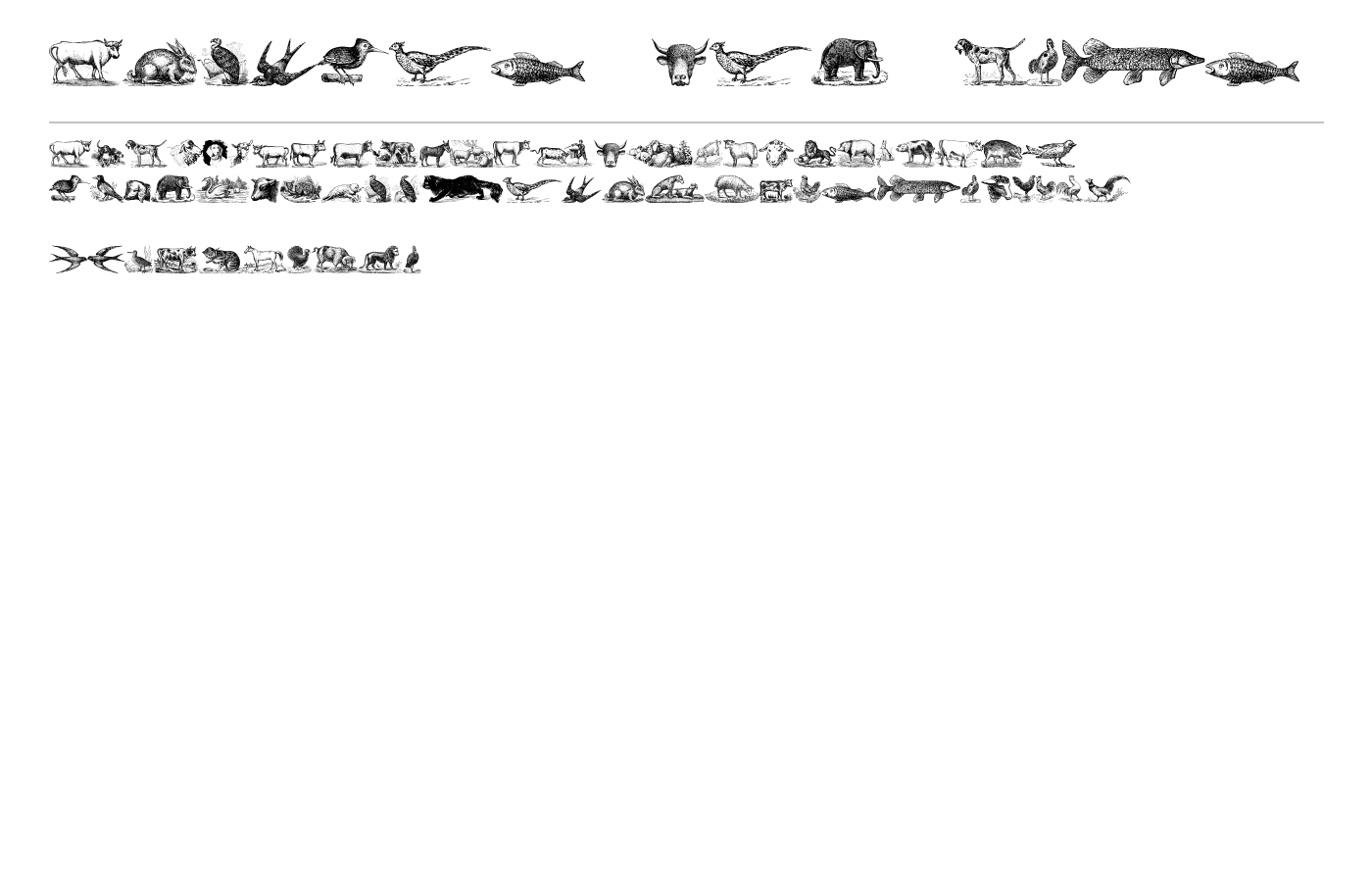
Animals Old Cuts is a unique decorative typeface featuring detailed vintage animal illustrations that evoke a nostalgic, old-world charm. This font works best for creative projects needing an antique, naturalistic touch, such as packaging, posters, or branding in the fields of wildlife, nature, or history. Its intricate and pictorial style makes it ideal for eye-catching headers rather than body text.
Animals Old Cuts Font
About Animals Old Cuts Font
| Font family | Animals Old Cuts Font |